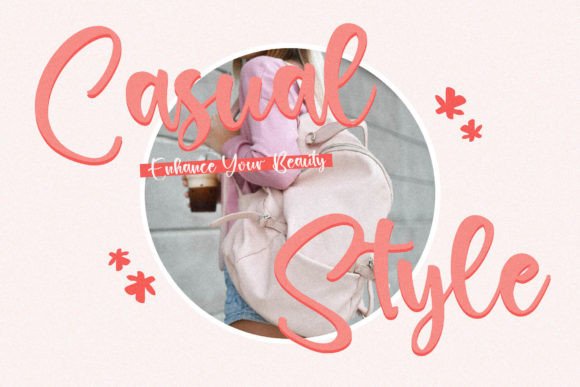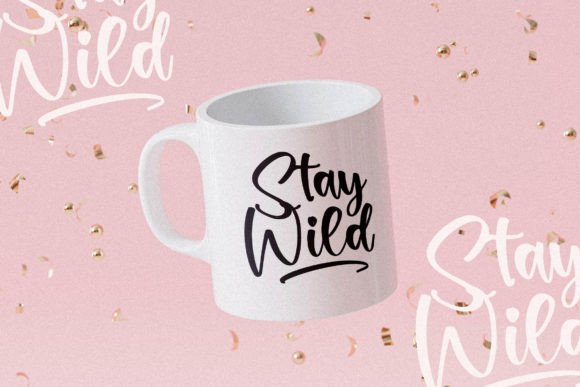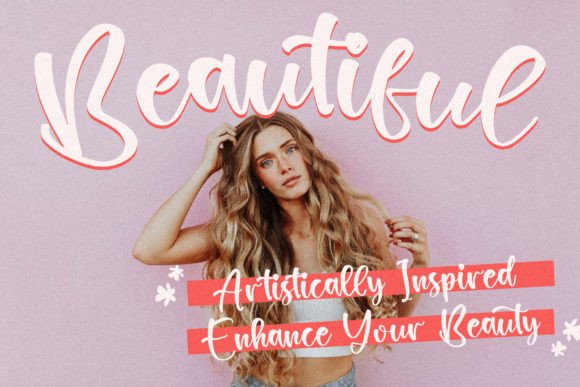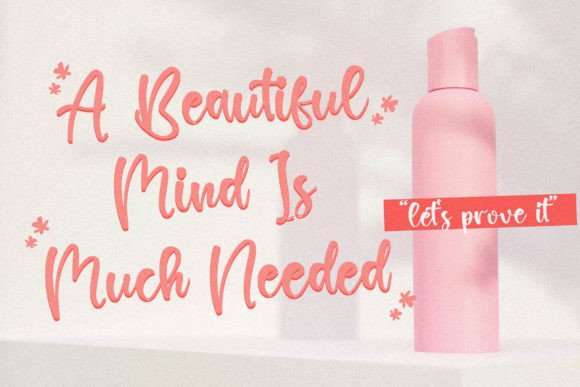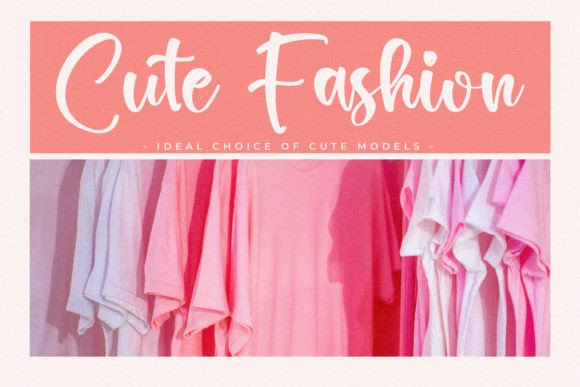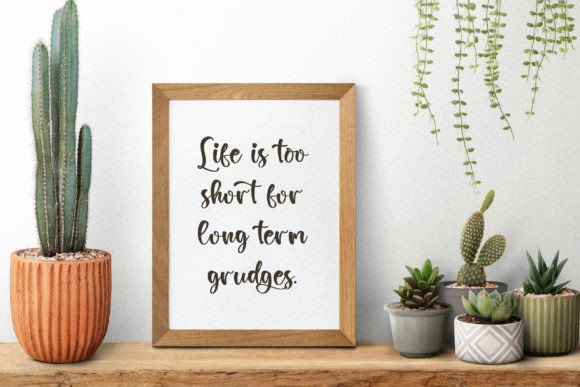
Bettafield Font: Elevate Your Designs with a Modern Handwritten Touch
Are you on the hunt for a font that adds a personal and elegant touch to your designs? Look no further than Bettafield, a modern handwritten font that’s perfect for a wide range of projects. From logos and branding to homeware designs, product packaging, and more, Bettafield is the ideal choice for designers and crafters seeking a beautiful script taste.
What Makes Bettafield Special?
Bettafield is more than just a font – it’s a design statement. With its modern handwritten style, this font exudes a sense of sophistication and elegance, making it perfect for projects that require a touch of personality. Whether you’re working on a logo, a poster, or a product label, Bettafield’s flowing lines and cursive charm are sure to capture attention and leave a lasting impression.
Endless Design Possibilities with Bettafield
One of the best things about Bettafield is its versatility. This font is suitable for a wide range of projects, including:
- Logos and branding projects: Create a memorable brand identity with Bettafield’s unique and stylish script.
- Homeware designs: Add a touch of elegance to your home decor designs, from wall art to stationery.
- Product packaging: Stand out on store shelves with eye-catching packaging that features Bettafield’s beautiful handwritten style.
- Mugs, quotes, posters, and more: Bring a personal touch to your designs and make them truly special.
- Shopping bags, t-shirts, book covers, and name cards: Bettafield is perfect for any project that requires a stylish and modern script.
- Invitation cards, greeting cards, and labels: Make your cards and labels extra special with Bettafield’s elegant font.
- Photography and watermark: Add a professional touch to your photos with Bettafield’s subtle yet stylish script.
- Special events: Make your event designs truly unforgettable with Bettafield’s unique and captivating font.
Why Choose Bettafield?
So why should you choose Bettafield for your next design project? Here are just a few reasons:
- Unique and stylish: Bettafield’s modern handwritten style sets it apart from other fonts, ensuring your designs will stand out from the crowd.
- Versatile: This font is suitable for a wide range of projects, from logos and branding to homeware designs and product packaging.
- Elegant and sophisticated: Bettafield’s flowing lines and cursive charm add a touch of elegance to any design.
Tips for Using Bettafield in Your Designs
To get the most out of Bettafield, here are a few tips:
- Experiment with colors: Bettafield looks stunning in a range of colors, from bold and bright to soft and pastel.
- Play with sizes: This font is just as effective in large sizes as it is in smaller ones, making it perfect for headlines and body text.
- Mix and match: Combine Bettafield with other fonts for a unique and eye-catching look.